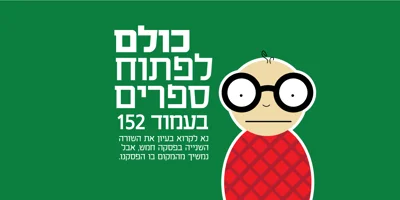
Rosenberg Textile Square MF Font
Rosenberg Textile Square MF Font is ideal for industrial design applications including manufacturing labels, technical documentation, warehouse signage, machinery branding, construction materials, safety instructions, automotive graphics, and factory floor displays. This robust typeface brings precision and durability to both utilitarian and commercial design environments.
What makes Rosenberg Textile Square MF Font exciting is its unique blend of industrial strength and geometric precision. The font features squared letterforms with consistent stroke weights that create a bold, mechanical appearance reminiscent of stenciled markings and stamped text. Its no-nonsense design philosophy emphasizes clarity and legibility under challenging conditions while maintaining distinctive character that commands attention.
The Rosenberg Textile Square MF Font family encompasses various weights and condensed versions optimized for different applications. From regular weights for standard text to ultra-bold variants for high-impact signage, each style maintains the signature square aesthetic. The family includes specialized characters and symbols commonly used in industrial and technical contexts.
Design professionals choose Rosenberg Textile Square MF Font for projects requiring strong, functional typography with industrial appeal. Whether creating corporate identities for manufacturing companies, developing technical manuals, or designing urban environments, this font provides reliable performance and authentic character. Its distinctive square geometry and industrial heritage make it an invaluable tool for designers working on projects that demand both functionality and memorable visual presence in challenging environments.